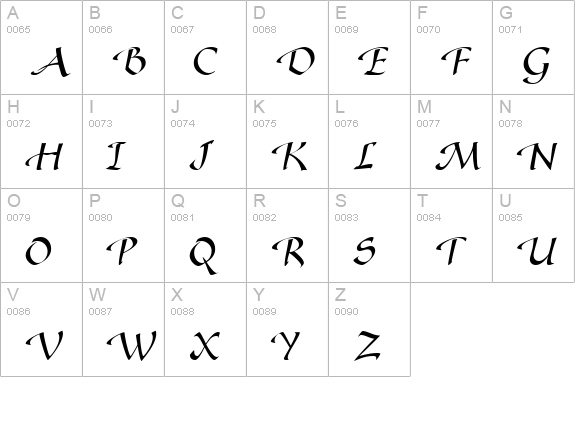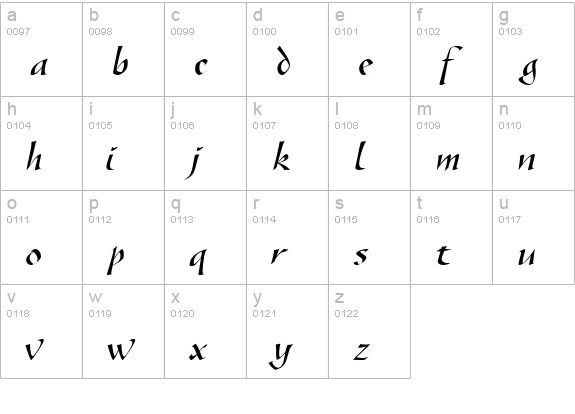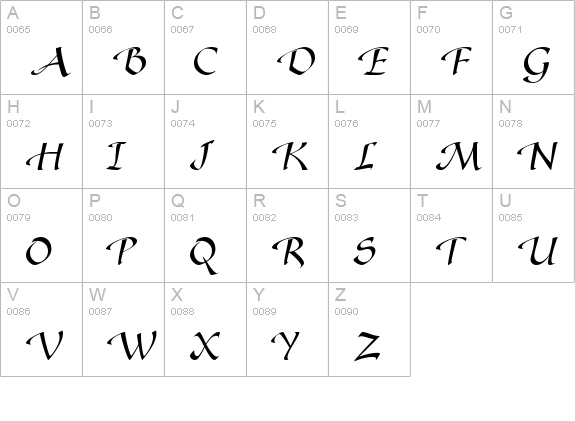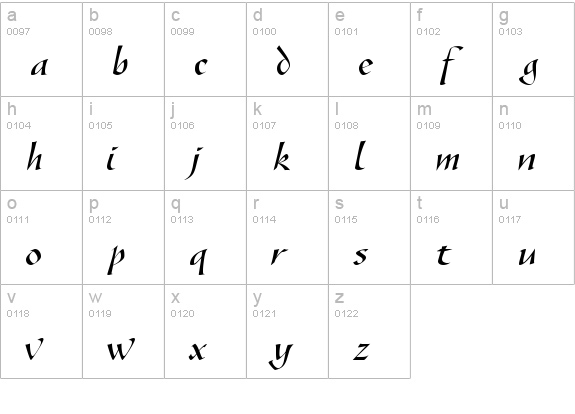
SonyannaScriptSSi Regular Font Details
SonyannaScriptSSi Regular is the standard, neutral variant in the SonyannaScriptSSi typeface family \xE2\x80\x94 well suited to general body text, paragraphs, and standard typographic work.
SonyannaScriptSSi Regular font is a stunningly elegant typeface that exudes sophistication and charm. Its smooth and flowing lines make it perfect for adding a touch of elegance to any design project. This font embodies a sense of timeless beauty, making it ideal for wedding invitations, branding, logo design, and more. With its delicate and graceful letterforms, SonyannaScriptSSi Regular font brings a sense of romance and refinement to any text. Whether used for titles or body text, this font adds a touch of class and elegance that is sure to captivate readers. One of the best aspects of SonyannaScriptSSi Regular font is that it is freely available to download at FontsMarket.com. This means that you can enjoy the beauty and versatility of this font without any limitations or restrictions. Whether you are a professional designer or a hobbyist, having access to high-quality fonts like SonyannaScriptSSi Regular font can greatly enhance your creative projects. With its wide range of glyphs and stylistic alternates, SonyannaScriptSSi Regular font offers endless possibilities for customization. You can easily experiment with different letterforms and ligatures to create unique and personalized designs that truly stand out. So, if you are looking for a font that combines elegance, versatility, and the best part is that it is free, look no further than SonyannaScriptSSi Regular font. Download it today at FontsMarket.com and start adding a touch of timeless beauty to your designs.